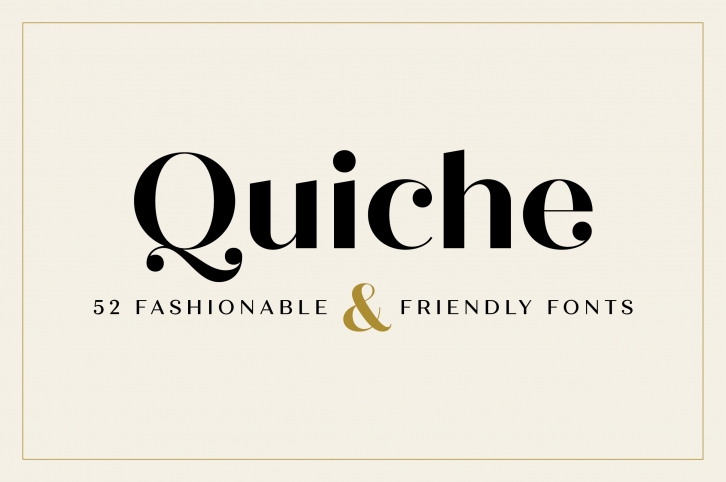
Quiche Family is a trendy and unique font with an authentic style. It was designed by Adam Ladd and it's a great choice for creative people who need such a font. It was released on May 8, 2018 and the file size is 12.55 MB. Quiche Family will add an organic vibe to any design idea!